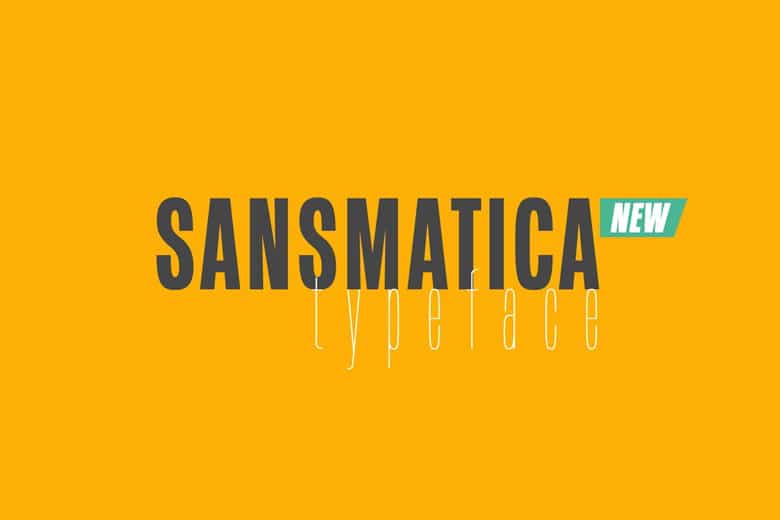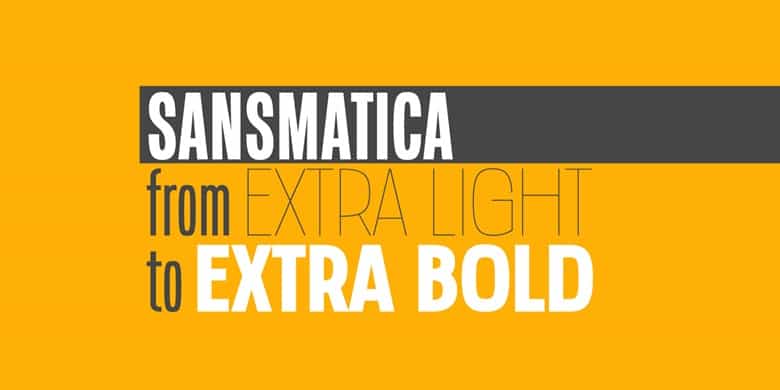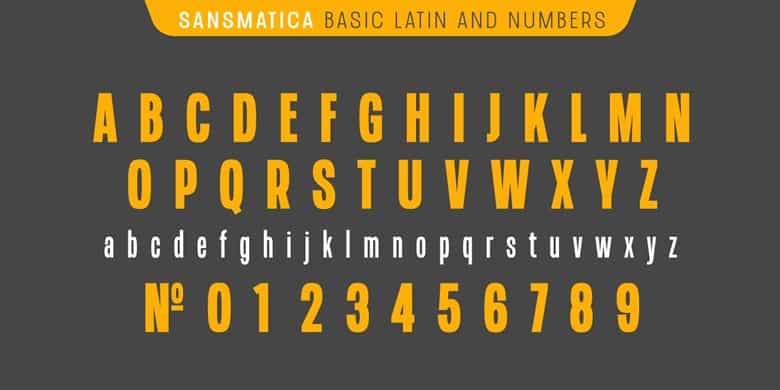
Sansmatica is a pure and contemporary sans serif type. It comprises 28 fonts that act as an all purpose design solution. It contains the regular and condensed styles of the fonts that can be applied to various reasons: regular fonts are fine enough to be used with the text, but the Sansmatica condensed fonts are more focused, they provoke the feelings and associations, and will be fine in the instance when you are expected to make some of the texts or advertisement stand out. They are also wonderful greeting cards, posters, branding, name card, stationery, design titles, blog headers, art quotes, and typography.